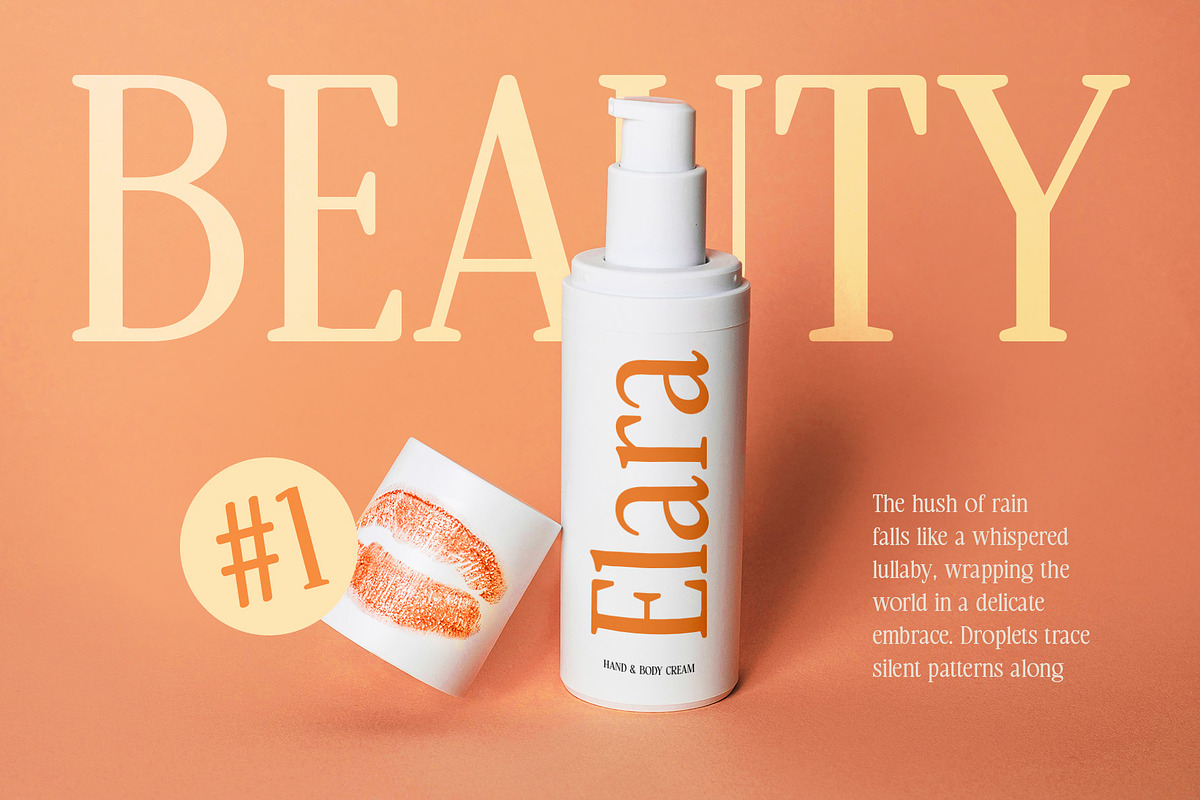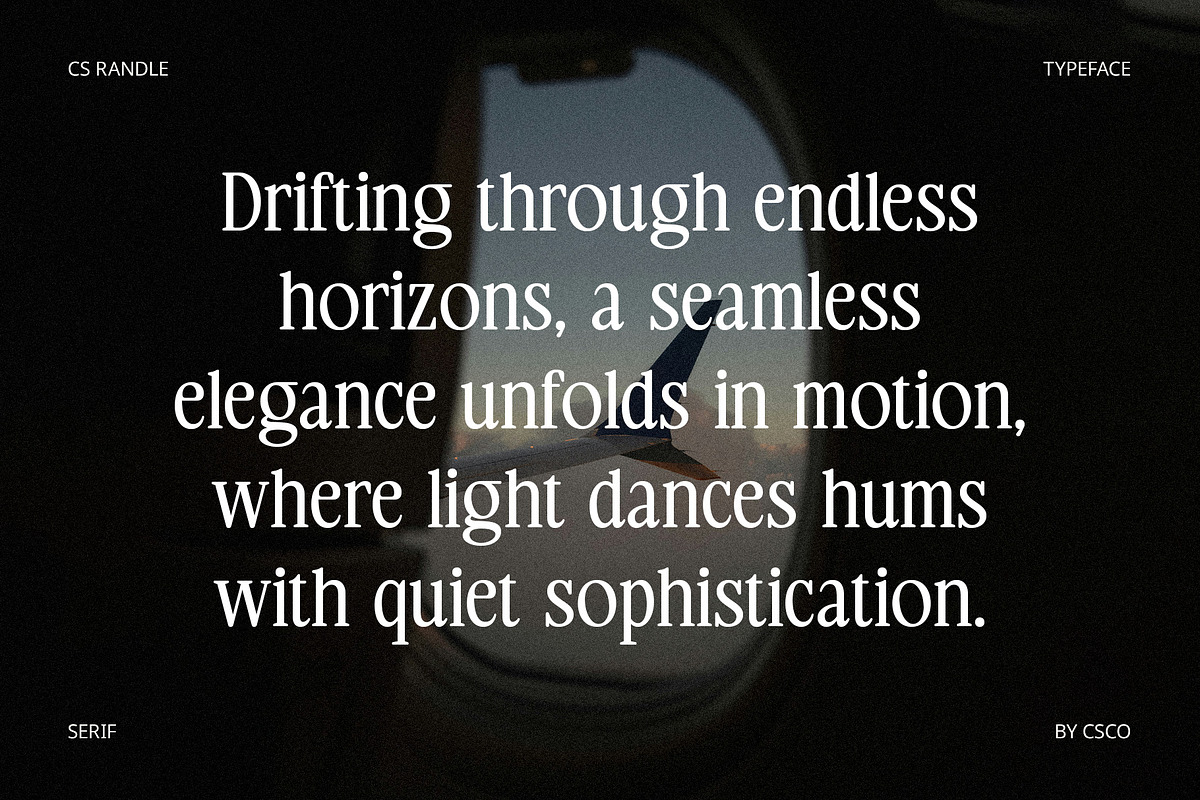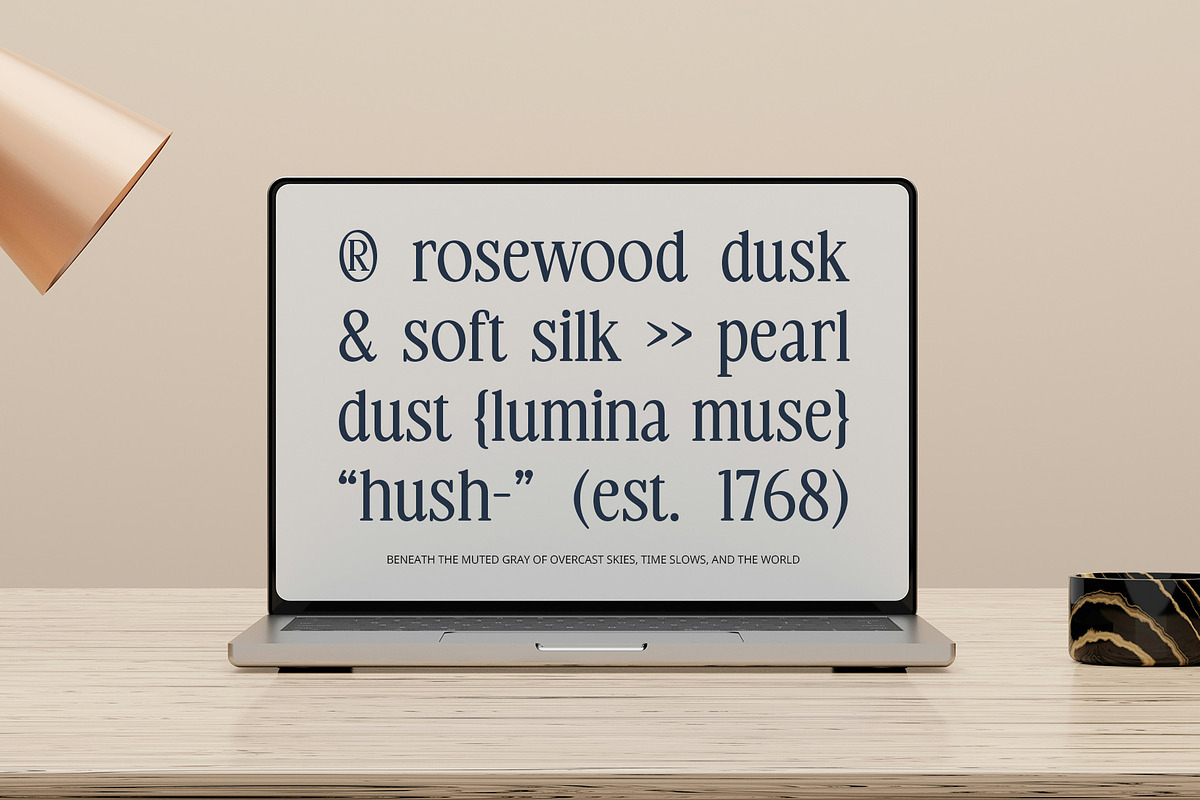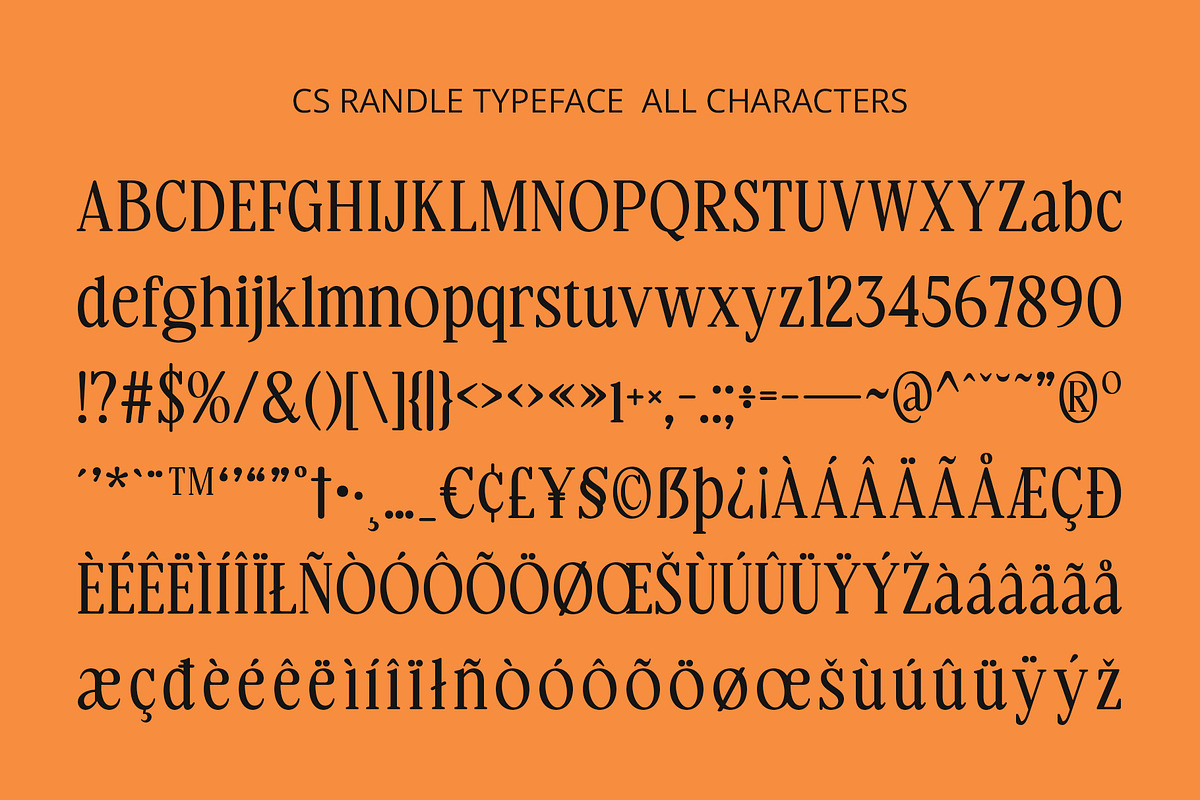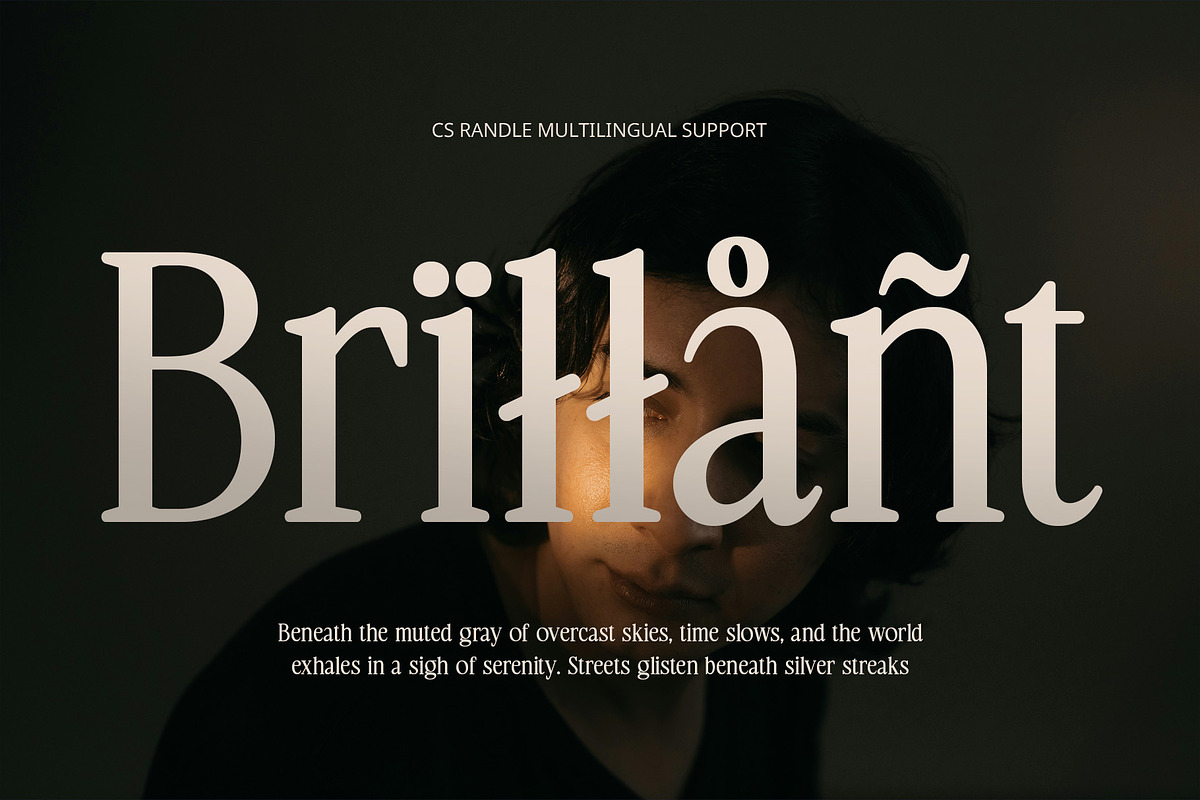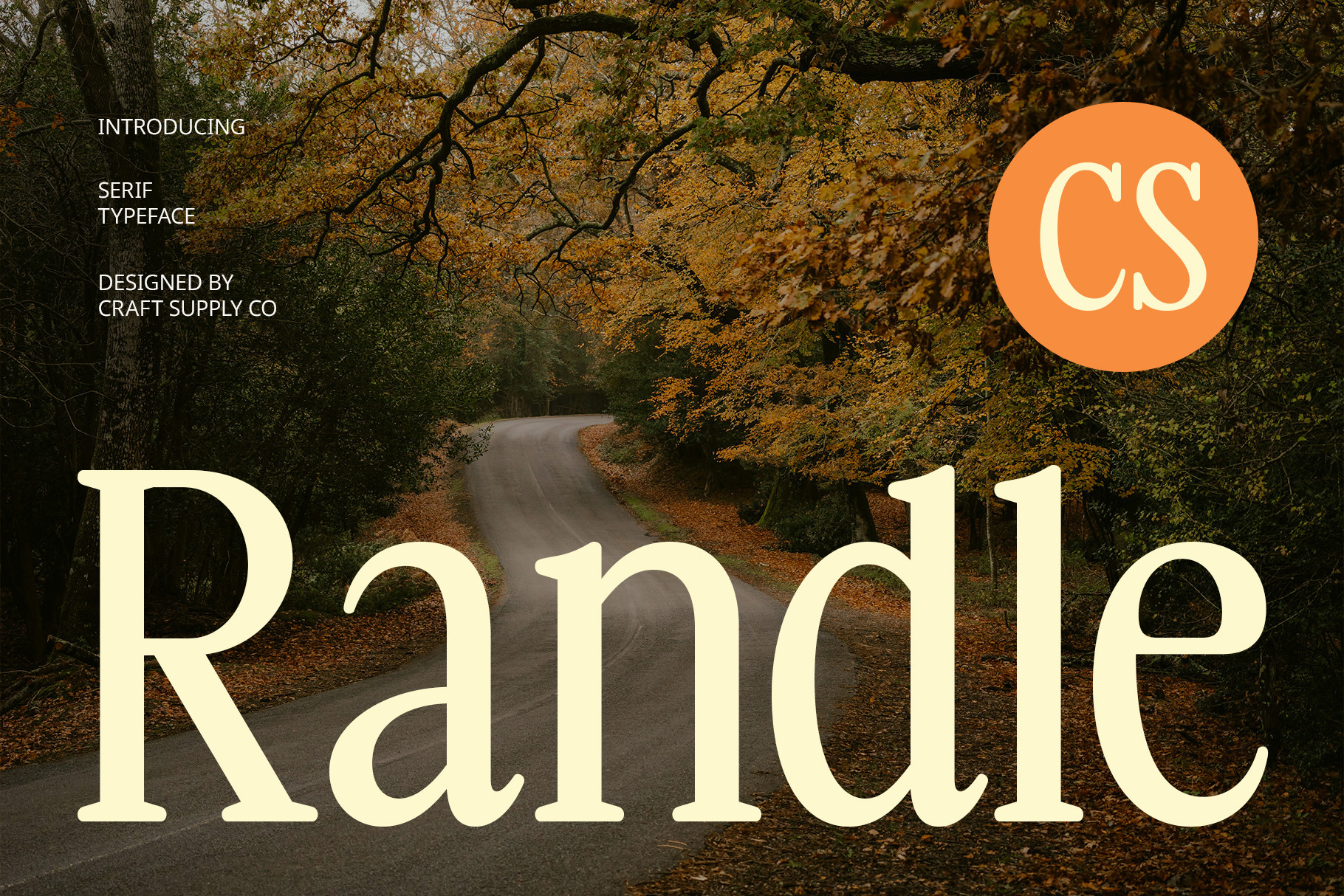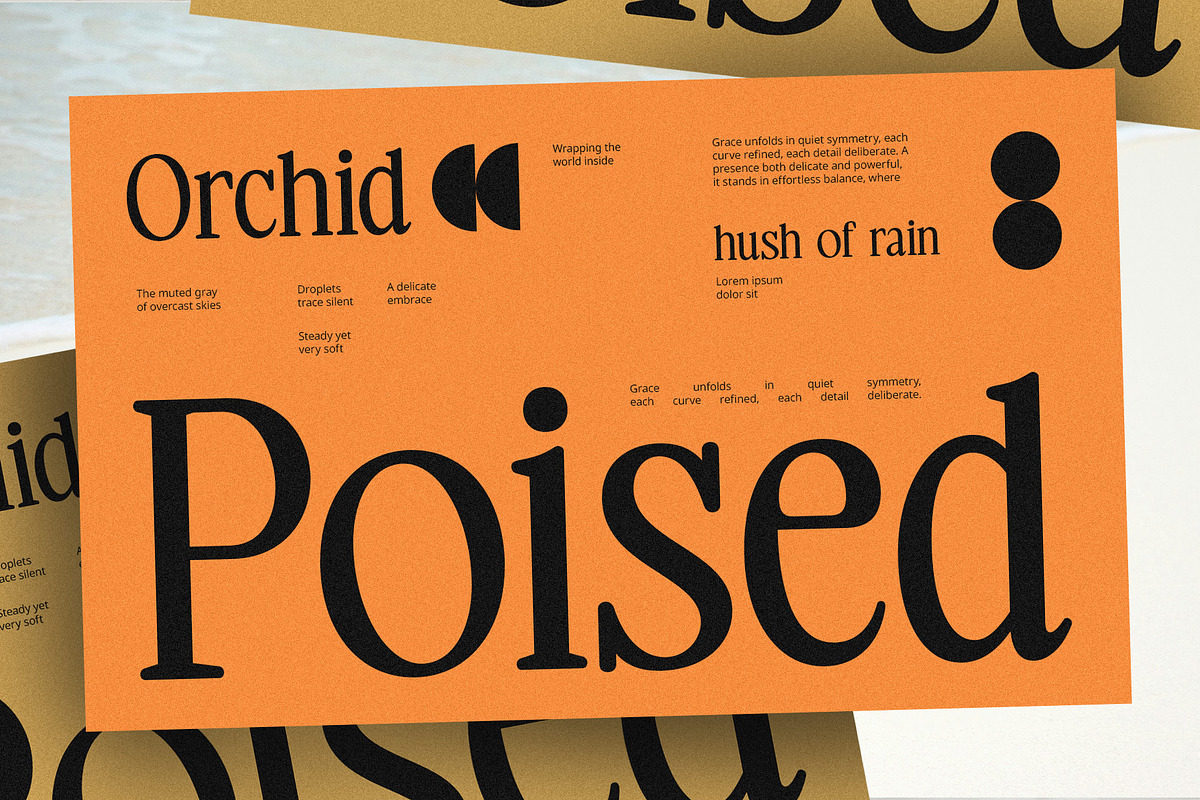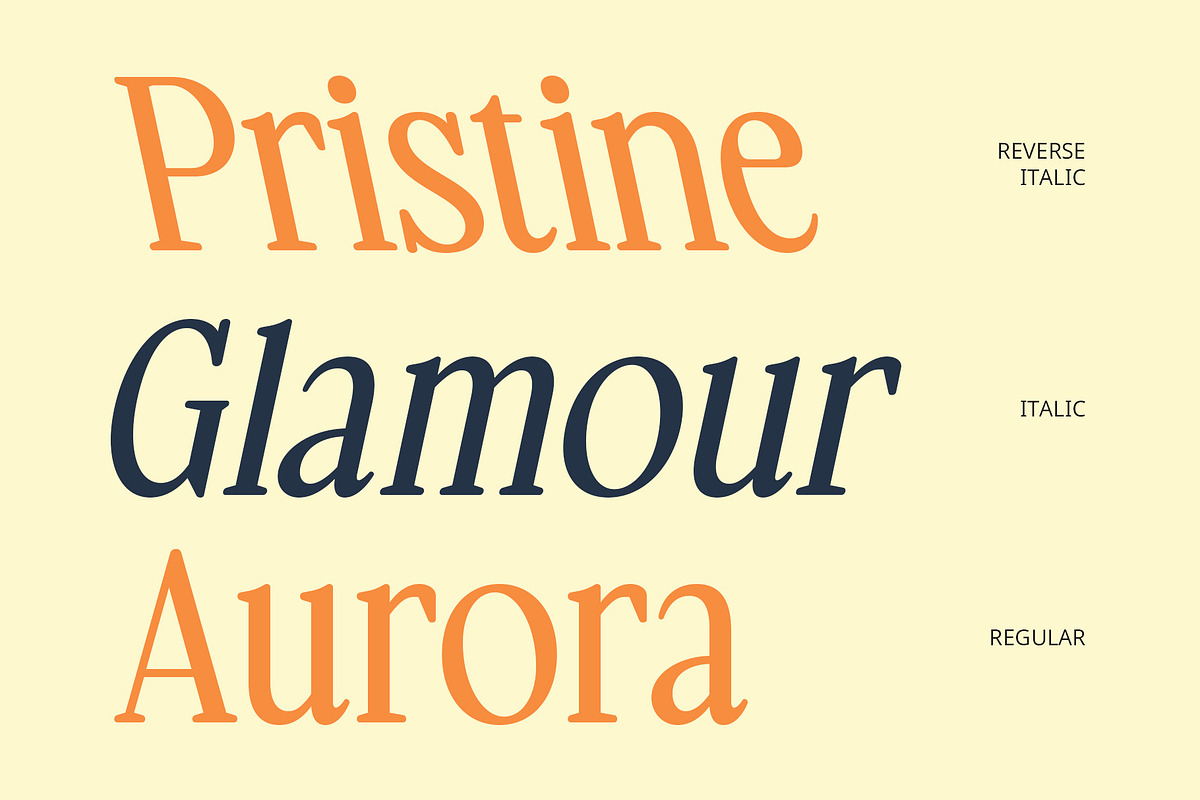
CS Randle – Classic Font
CS Randle – Classic Font with Timeless Elegance
Classic Serif Font with Modern Simplicity CS Randle is a refined serif font that effortlessly combines timeless charm with modern minimalism. Featuring clean, balanced letterforms and gently rounded terminals, it evokes a soft, elegant impression. This font brings a fresh yet familiar look, making it a perfect choice for sophisticated design work that values clarity and beauty.
Minimalist Structure with Subtle Character The font’s minimalist construction is balanced with charming nuances—like its subtly rounded terminals—that soften the overall tone. This detail adds warmth and approachability to the classic serif form, perfect for conveying grace without appearing overly traditional.
Versatile for Editorial and Luxury Branding Whether used in editorial layouts, magazine titles, or high-end branding, CS Randle offers timeless style and contemporary clarity. Its poised presence enhances visual hierarchy while maintaining readability and elegance, making it a versatile asset for thoughtful design.
Elevate Visual Projects with Understated Beauty CS Randle’s blend of modern and classic elements creates a distinctive look that feels both current and timeless. Ideal for projects seeking a refined, calm, and confident tone—like premium packaging, visual identities, or elegant print work—it brings a sophisticated charm to any setting.
- CS Randle Regular
- CS Randle Italic
- CS Randle Reverse Italic